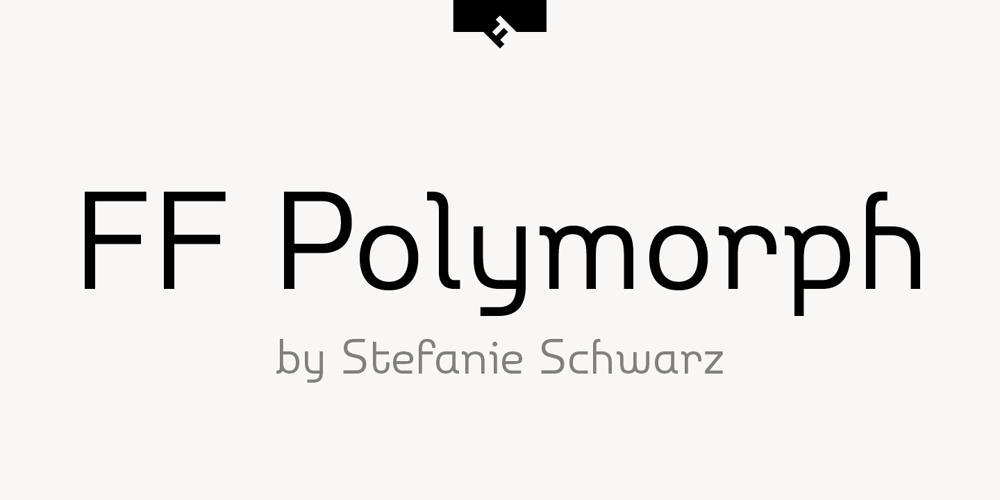
FF Polymorph Font Family was designed by Stefanie Schwarz and published by FontFont. FF Polymorph contains 6 styles and family package options. German type designer Stefanie Schwarz created this display and sans FontFont in 2008. The family has 6 weights, and is ideally suited for advertising and packaging, festive occasions, editorial and publishing as well as poster and billboards. FF Polymorph provides advanced typographical support with features such as ligatures, alternate characters, case-sensitive forms, super- and subscript character, and stylistic alternates. It comes with a complete range of figure set options – oldstyle and lining figures, each in tabular and proportional widths.